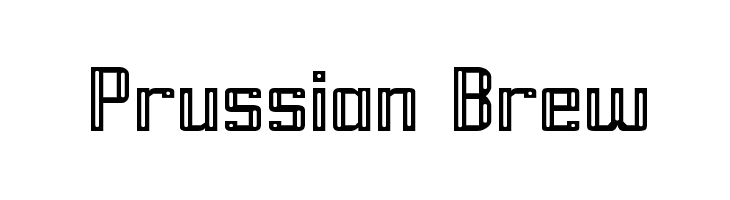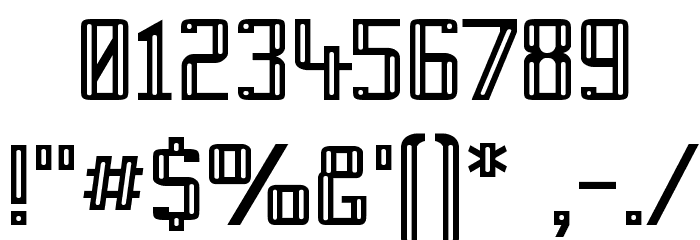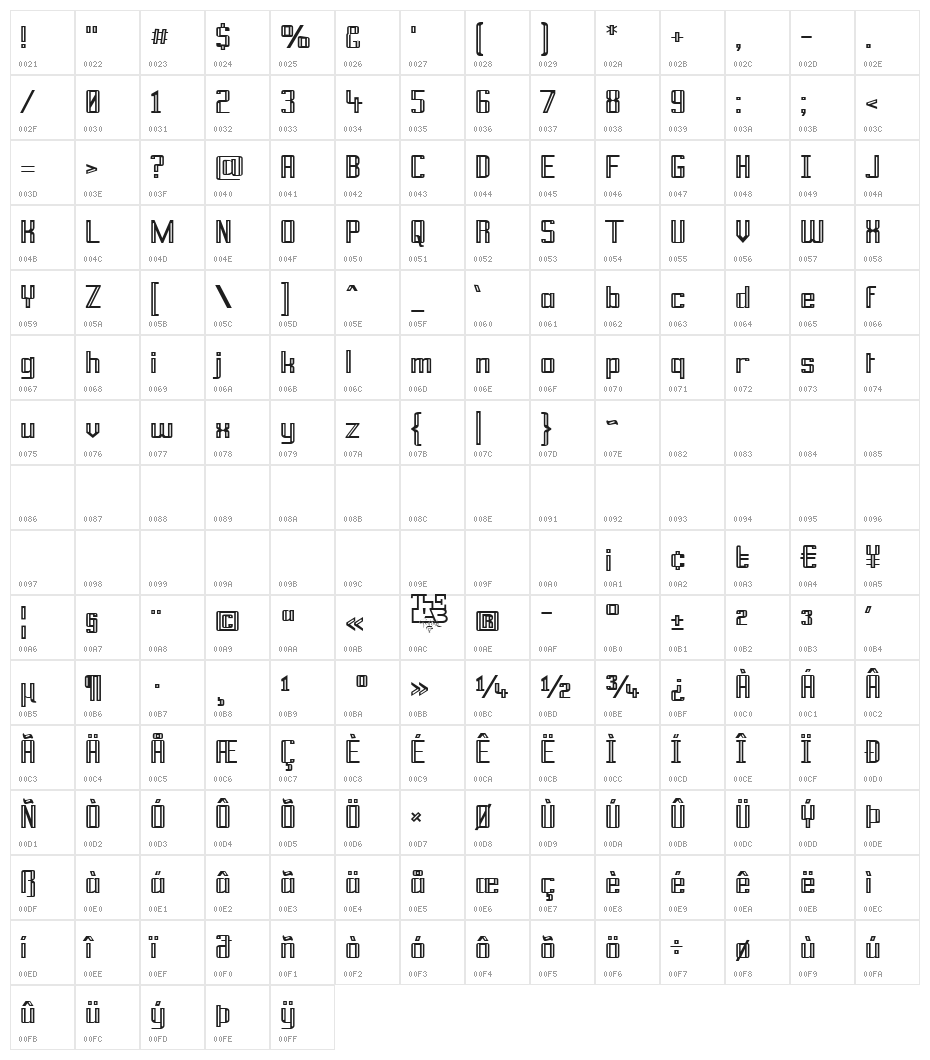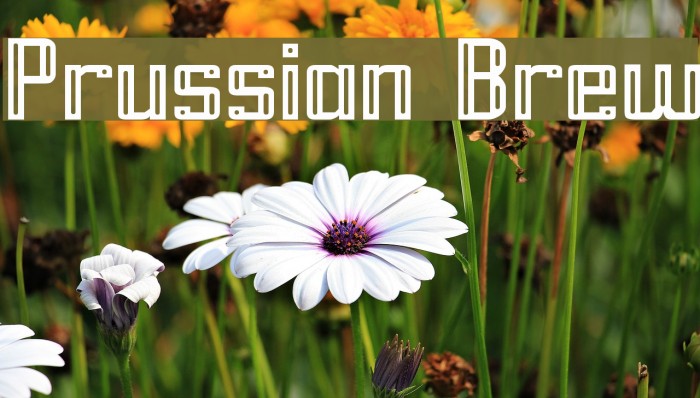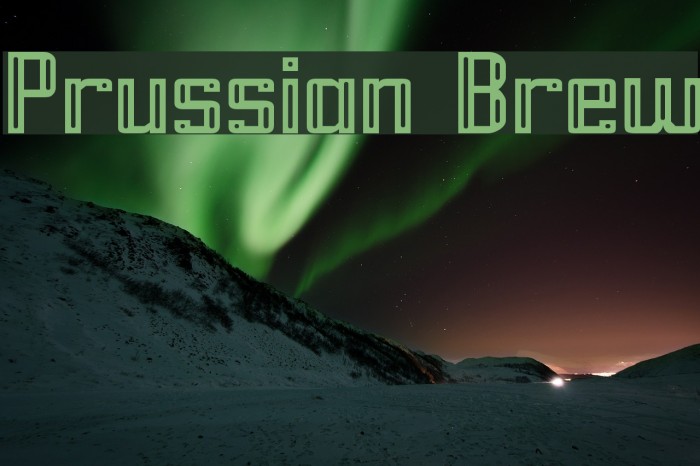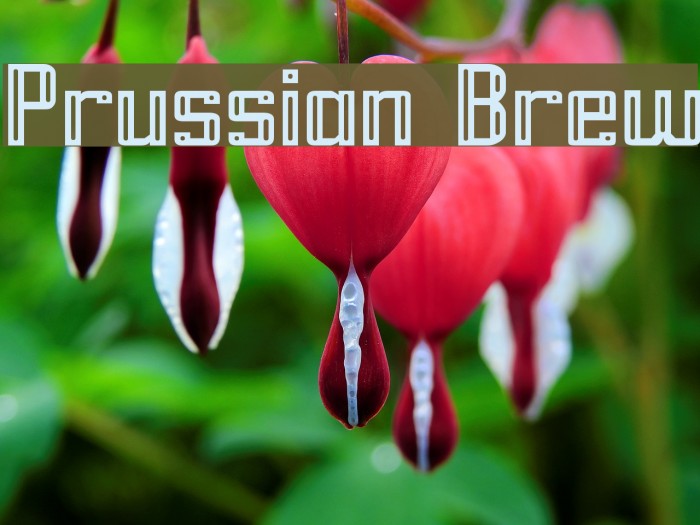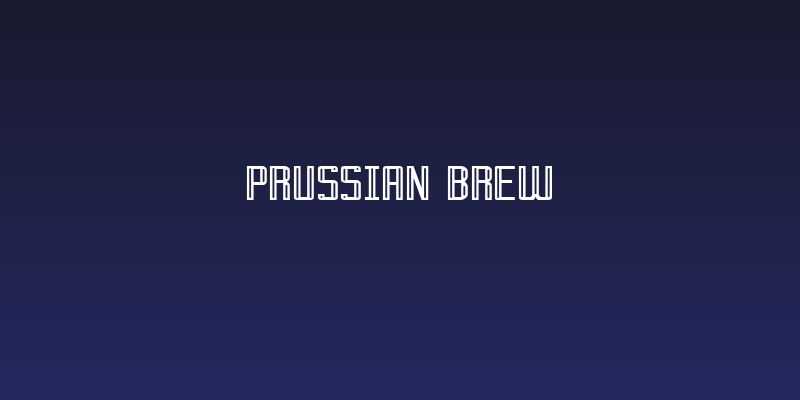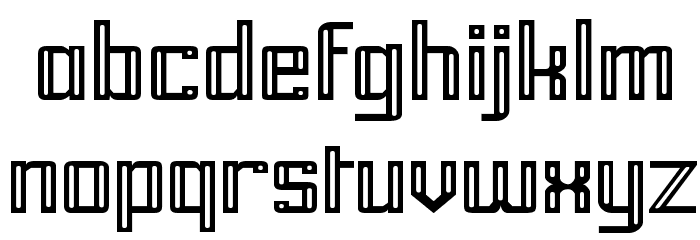
Prussian Brew Font
Prussian Brew Description
This font features a unique, geometric design with a modern twist. The characters are constructed with a consistent line weight, giving it a structured and industrial feel. The uppercase letters are bold and commanding, while the lowercase letters maintain the same geometric style, offering a cohesive look. The numbers and special characters follow the same design principles, ensuring uniformity across all glyphs. The font's distinct style makes it suitable for projects that require a contemporary and edgy aesthetic.
| Proposed Projects | Ideal for branding, posters, and signage where a modern and bold statement is needed. |